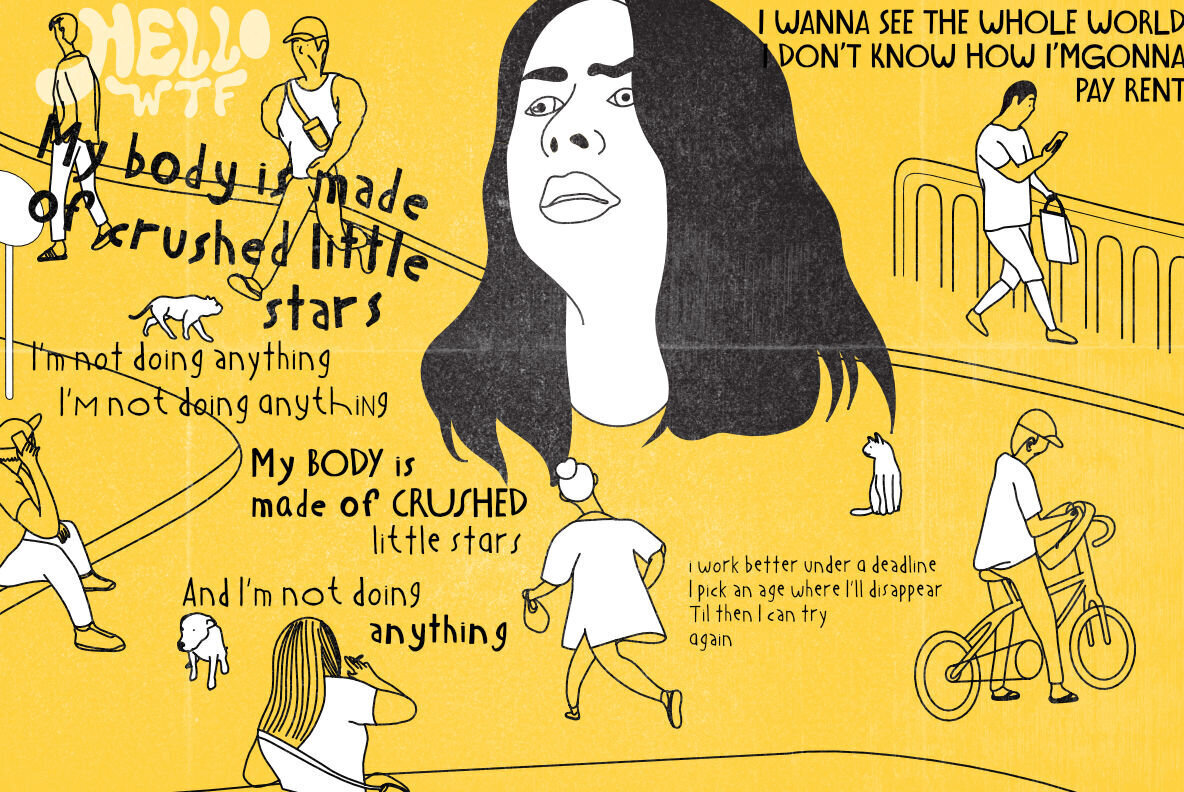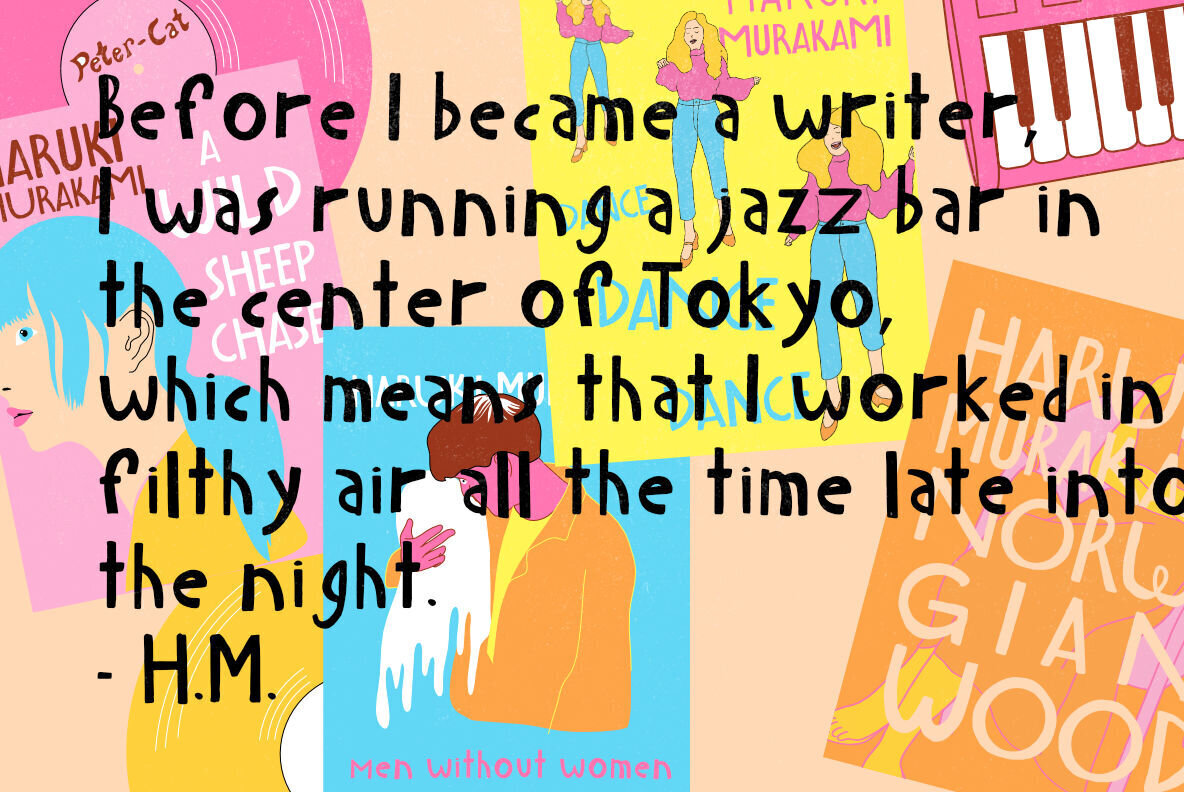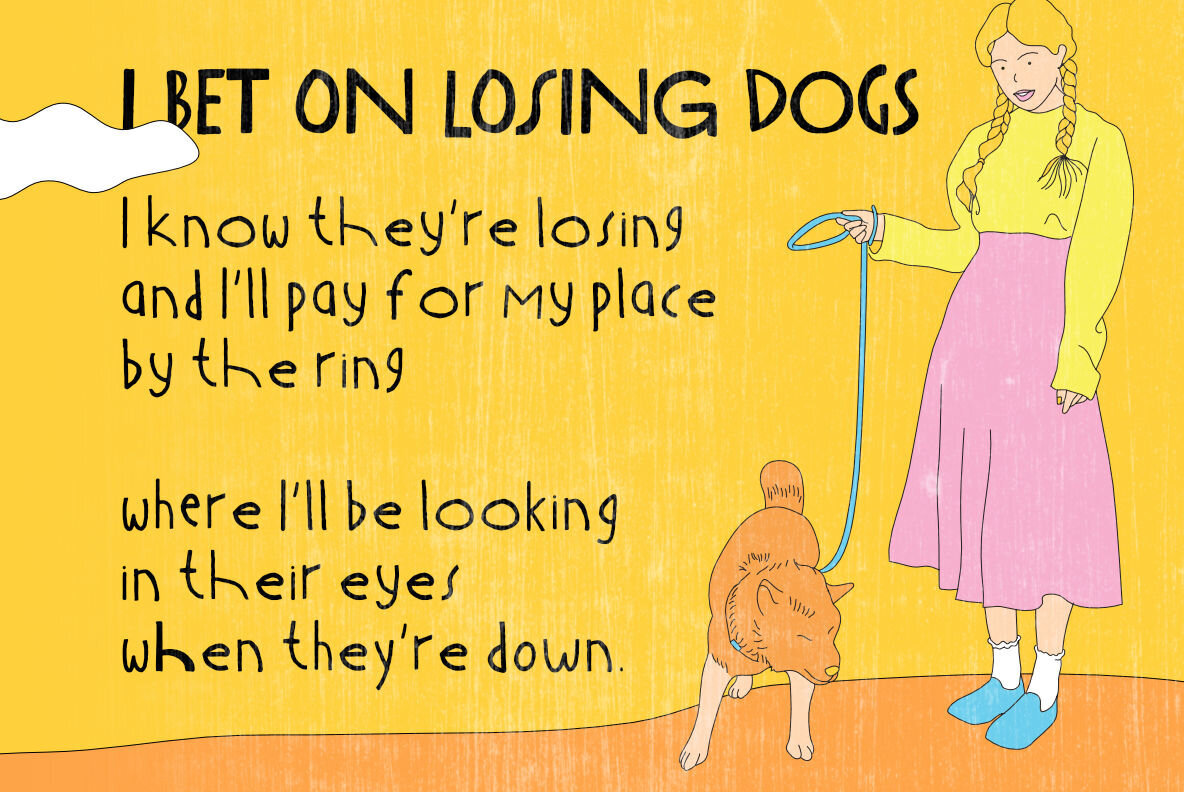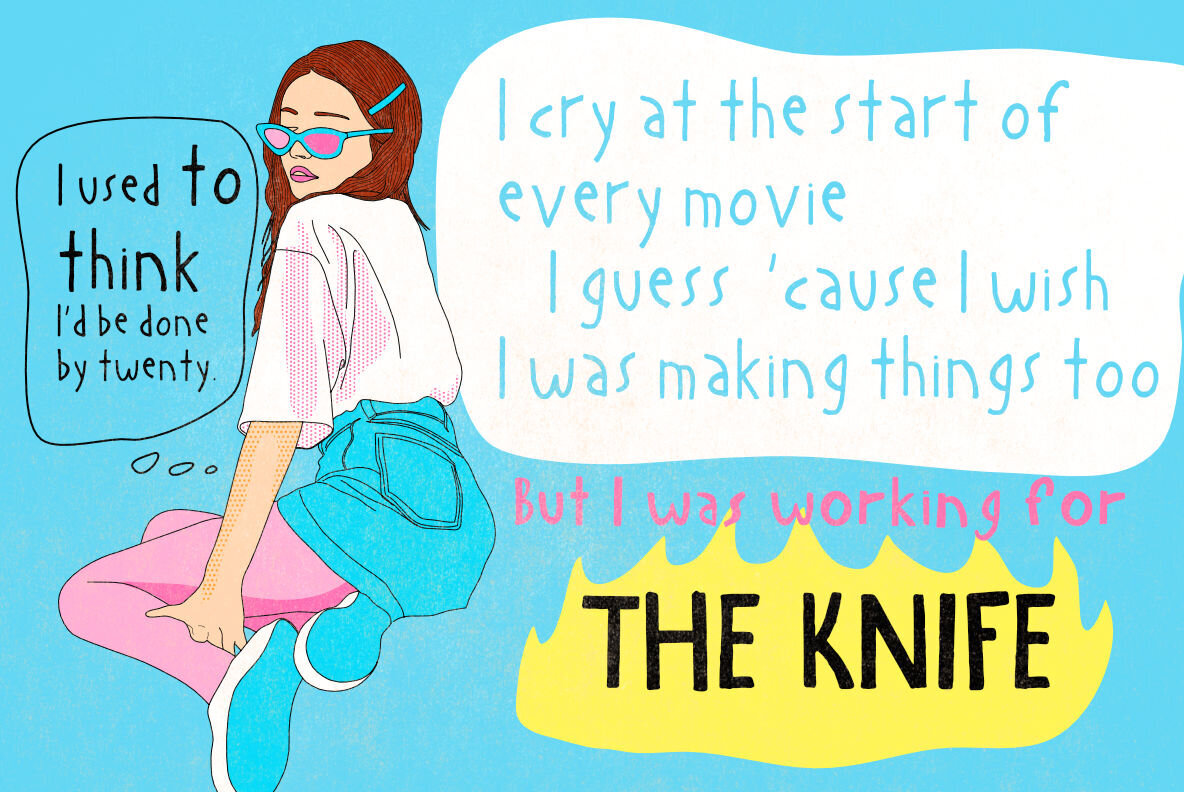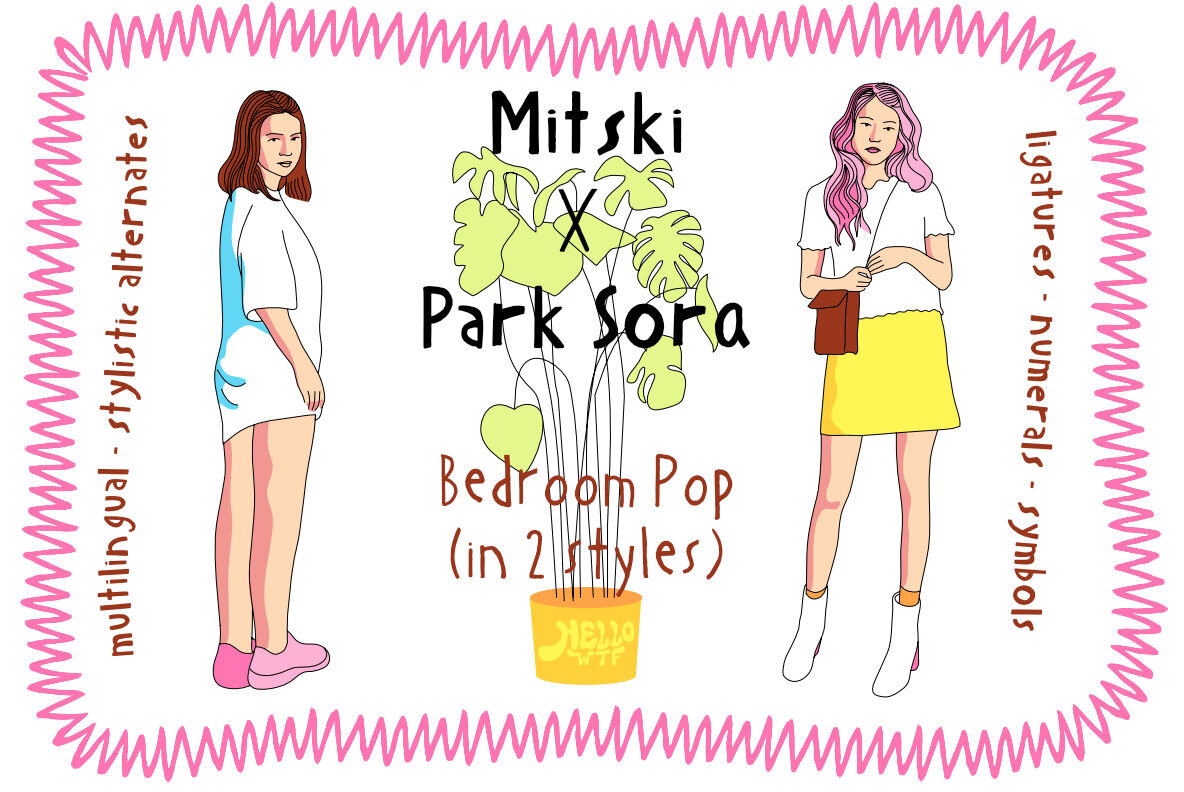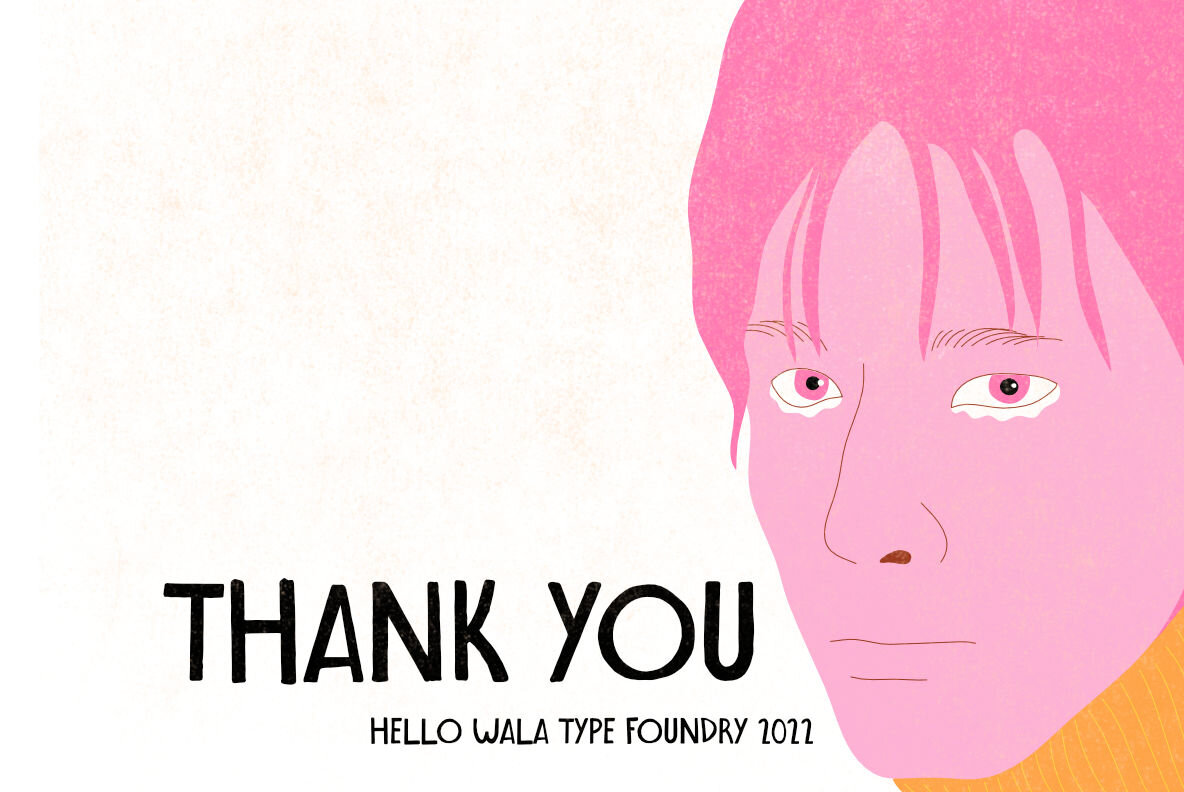
Bedroom Pop Font
Bedroom Pop captures the nervous energy of a nervous teen making personal pop records in the bedroom. It's flawed, spontaneous and brutally honest.